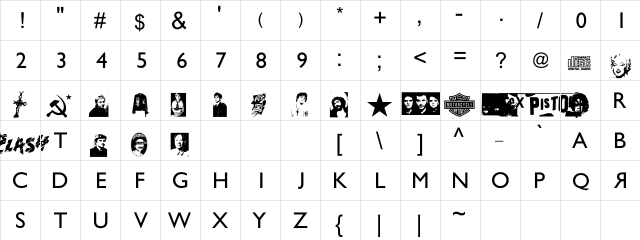
Manics - The Holy Bible Gill Sans
| Designer | Michael Dennett |
Design Context for Manics - The Holy Bible Typeface
Manics - The Holy Bible offers clean, dependable letterforms without strong stylistic allegiance, making it a practical choice for designers who need flexibility.